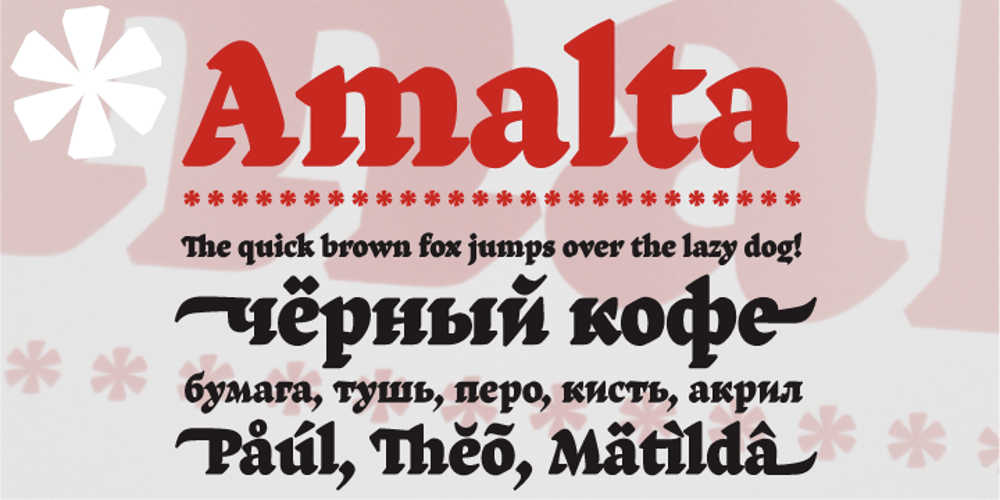
Amalta
Amalta font
Amalta Font Family was designed by Vera Evstafieva and published by Infonta. Amalta contains 1 styles and family package options. Amalta is a Display typeface with calligraphic background. It inherits weight and letter constructions from the original brush lettering. Amalta’s Latin and Cyrillic sets were designed simultaneously with an equal attention to details and overall pattern. They both include initial and final swash forms which can be used by a typographer’s choice. Amalta is suitable for large sized typesetting: headlines, few-line texts, etc.